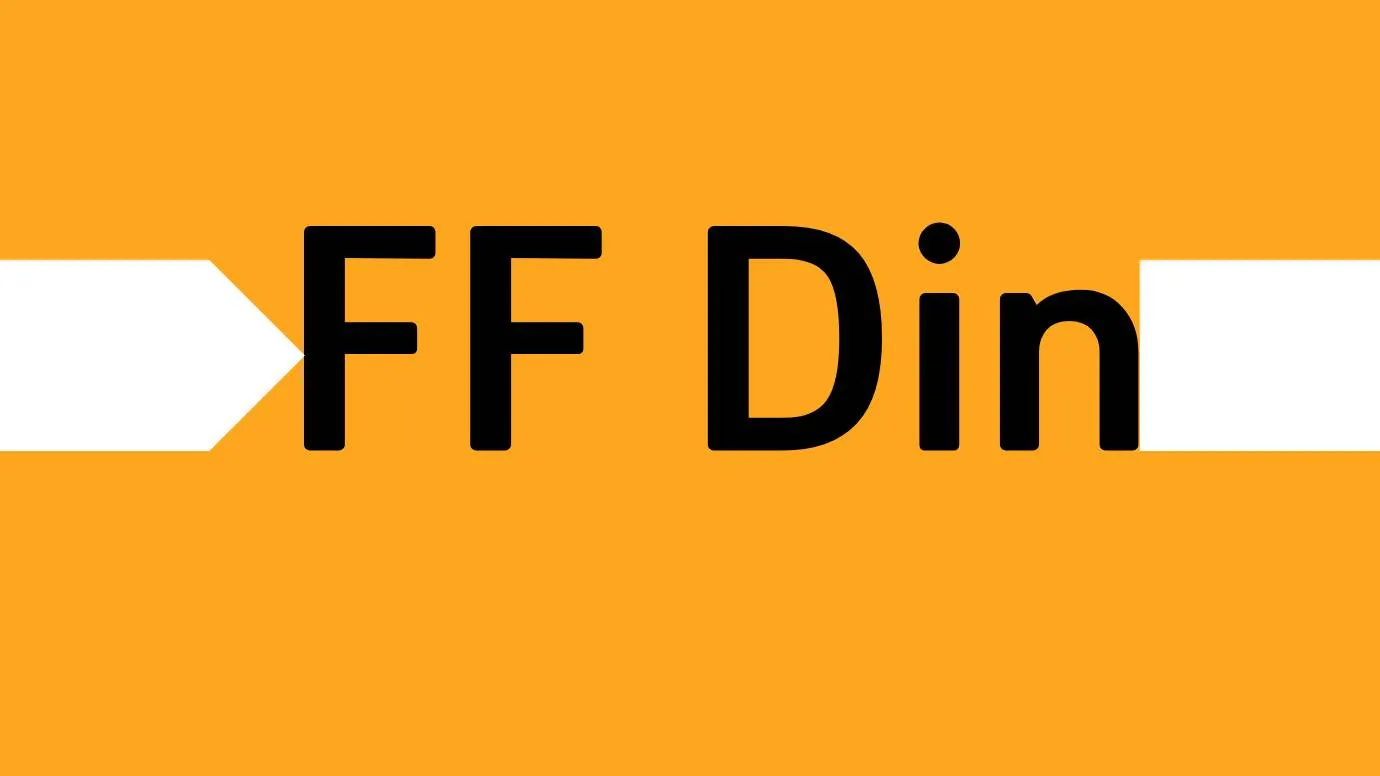
FF DIN Font Family isĀ an exceptional family of sans-serif typefaces available in 20 distinct styles and weights ranging from Light to Black, inclusive of condensed versions and corresponding Italics. The design of this font family was brought to life between 1995 and 1996 by Albert-Jan Pool.
This font family has extended typographical support and provides advanced featuring such as fractions, case-sensitive forms, subscript characters, extended Latin, stylistic characters, general punctuations, and stylistic alternates.
DesignerAlbert-Jan Pool
Date Released1996